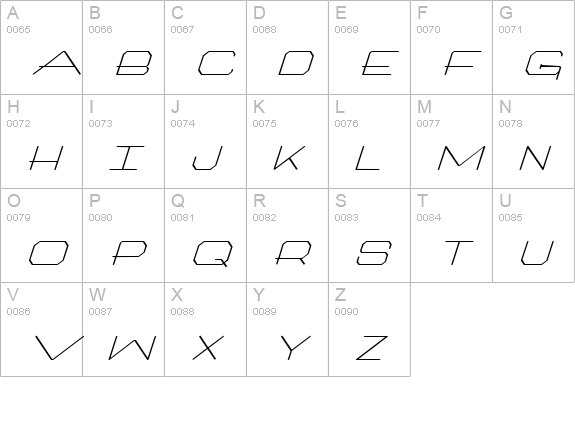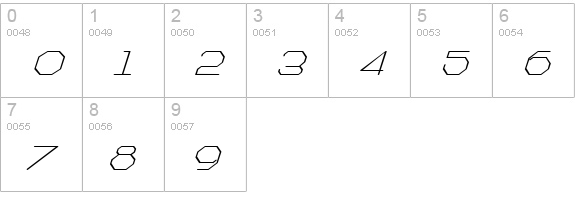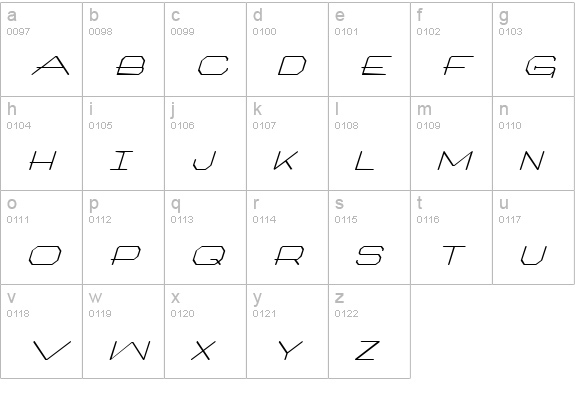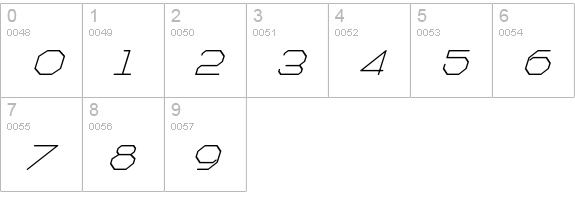
Artlookin Italic Font Details
Artlookin Italic is a distinctive, italic variant in the Artlookin typeface family \xE2\x80\x94 well suited to design and typography projects.
Artlookin Italic is a modern and stylish font that exudes elegance and sophistication. With its sleek and slender letterforms, this italic typeface is perfect for adding a touch of class to any design project. The slanted appearance of the letters adds a dynamic and contemporary feel to text, making it stand out on the page. What sets Artlookin Italic apart is its versatility and readability, making it suitable for a wide range of design applications, from branding and advertising to editorial and web design. Whether you're looking to create a sleek and professional look or add a touch of flair to your project, Artlookin Italic is sure to impress. The best part? Artlookin Italic is available for free download at FontsMarket.com. Now you can enhance your designs with this stunning font without breaking the bank. Don't miss out on this opportunity to elevate your typography game with Artlookin Italic. Download it today and see the difference it can make in your projects!